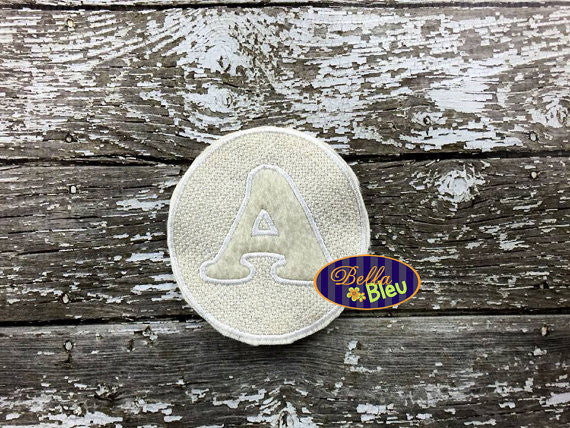
Embossed Alpha Coop Font Towel Monogram Embroidery design machine embroidery
This listing is for the entire Embossed alphabet of the font Coop!
This designs perfect for the front of onesies, towels or tee shirts.